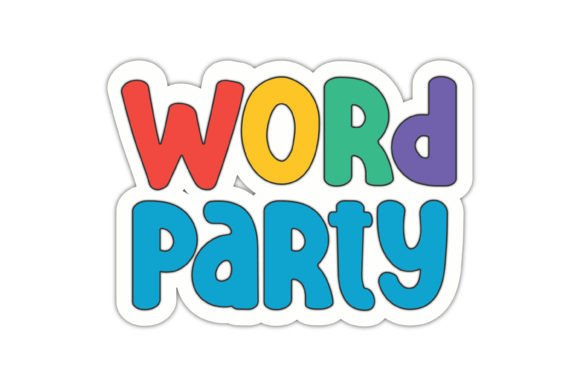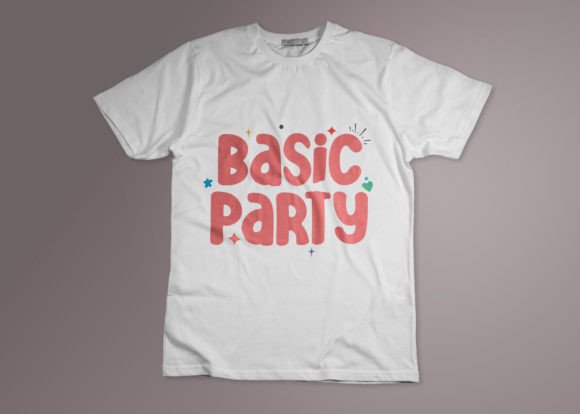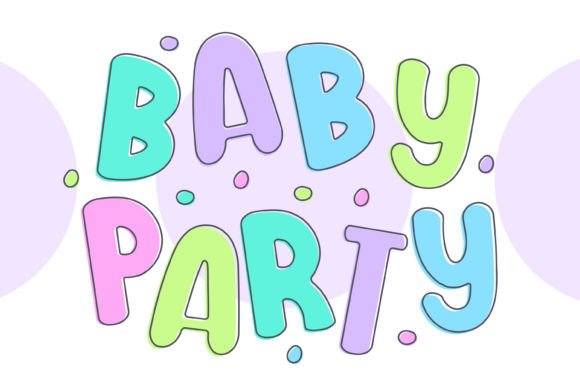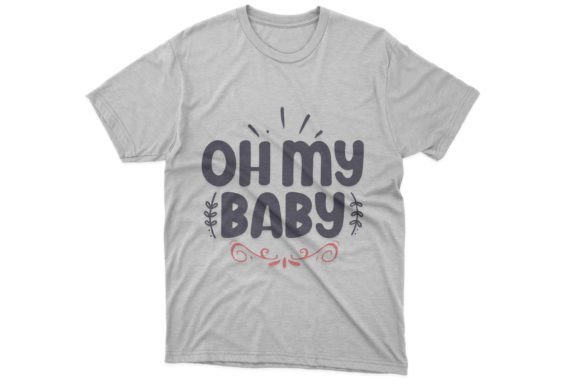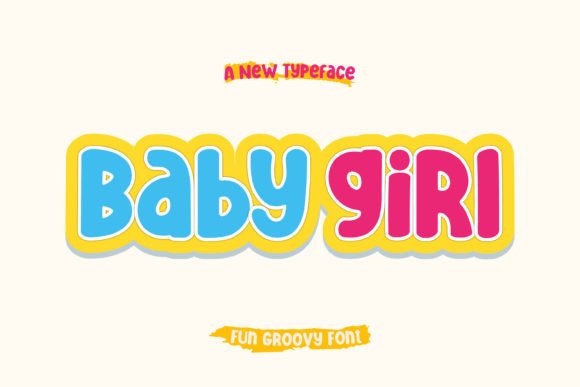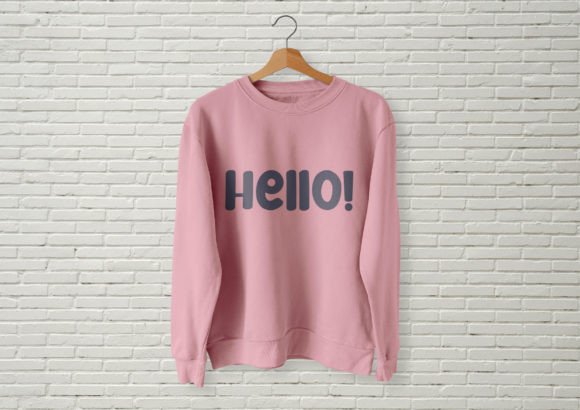
The Ultimate Guide to Basic Party Font: Adding Fun and Quirk to Your Designs
I’ll never forget the time I was working on a project for a client’s birthday party invitation. I had the design concept nailed down, but I just couldn’t find the right font to bring it all together. That’s when I stumbled upon Basic Party, a fun and quirky display font that instantly elevated my design. In this article, I’ll share my love for Basic Party, its features, and how to make the most of it in your designs.
An Honest Review of Basic Party
So, what makes Basic Party so special? Here are some things I love about this font:
- ✨ Fun and playful vibe: Basic Party is perfect for designs that need a dash of whimsy and fun.
- ✅ All-caps display font: This font is designed to make a statement, and its all-caps design ensures it stands out.
- 💡 Highly versatile: Basic Party can be used on various platforms, including cards, promotional ads, social media posts, product packaging, and more.
While Basic Party is an amazing font, it’s not without its quirks:
- 🤔 Limited use cases for body text: Due to its display nature, Basic Party might not be the best choice for lengthy body text.
- ⚠️ May not be suitable for formal designs: This font is playful and fun, so it might not be the best fit for formal or professional designs.
- Explore stylistic alternates and glyphs to add more variety to your text.
The Backstory of Basic Party
Basic Party was designed with one goal in mind: to bring fun and quirkiness to designs. The font’s creator wanted to craft a font that would add a playful touch to any project, from party invitations to social media posts. With its bold and playful design, Basic Party has become a go-to font for designers and crafters alike.
| What is Basic Party font best used for? | Basic Party is perfect for designs that need a fun and playful touch, such as party invitations, social media posts, and promotional ads. |